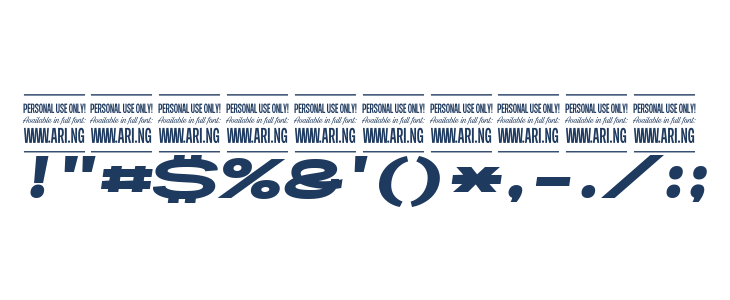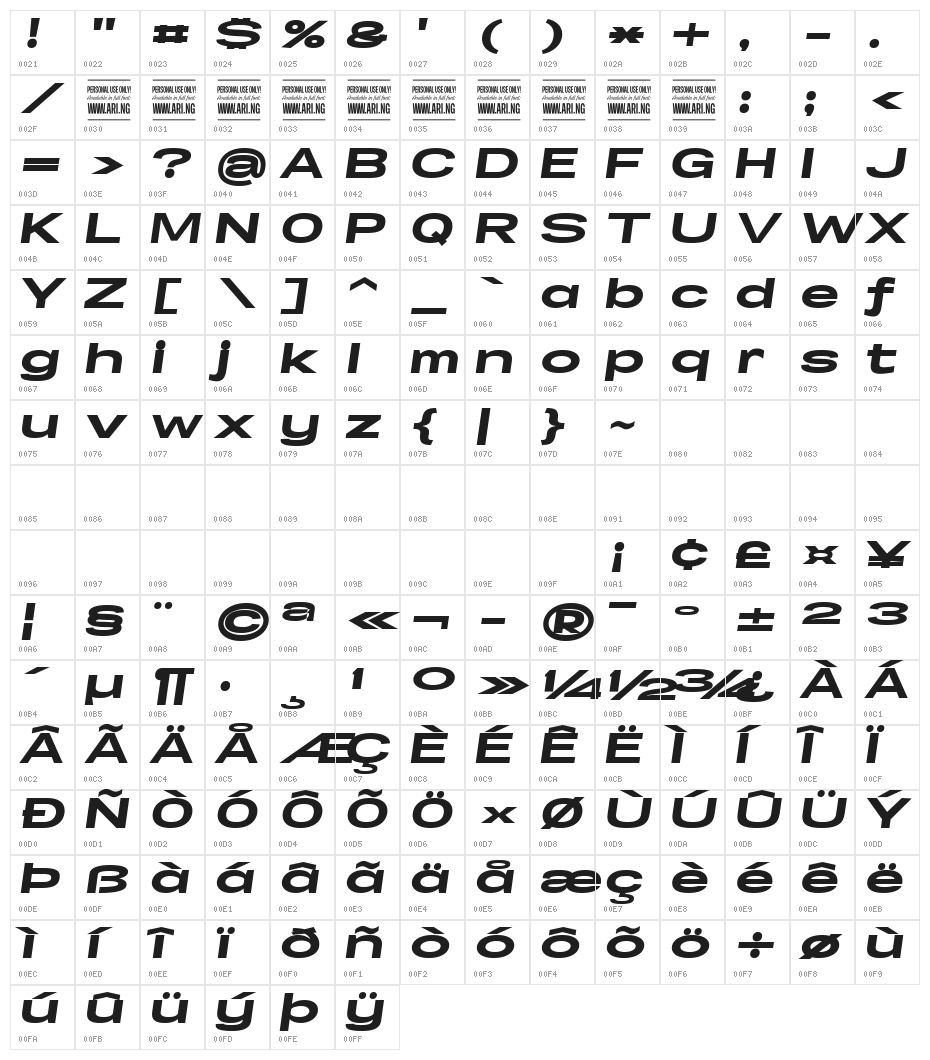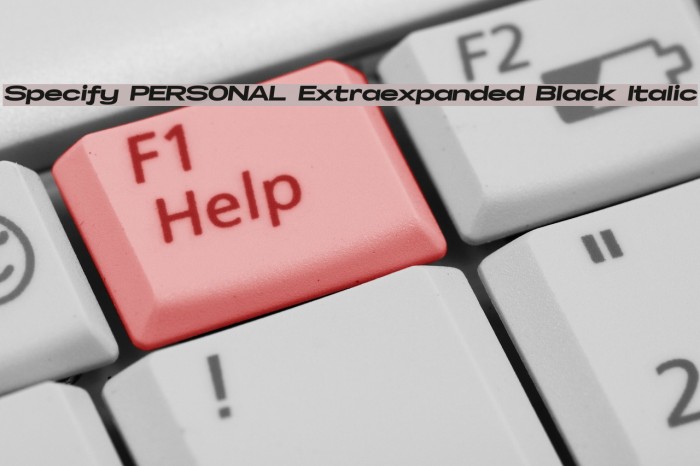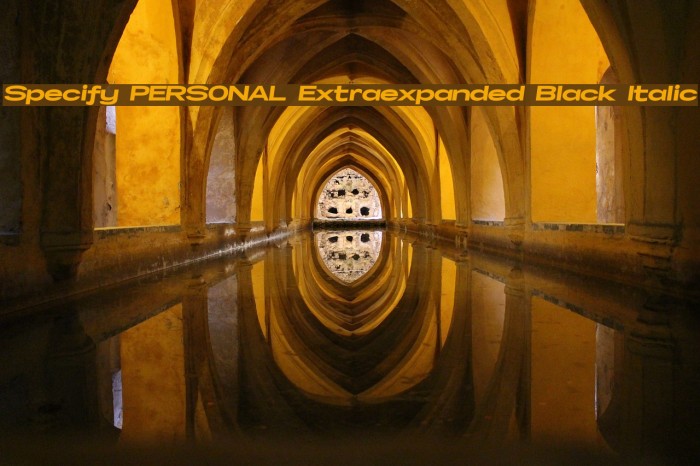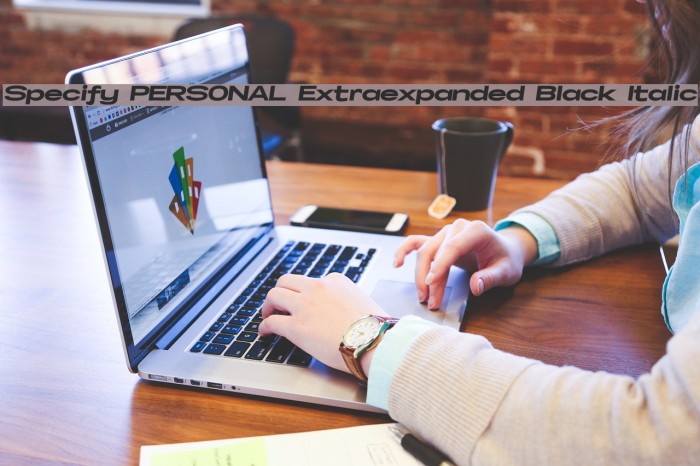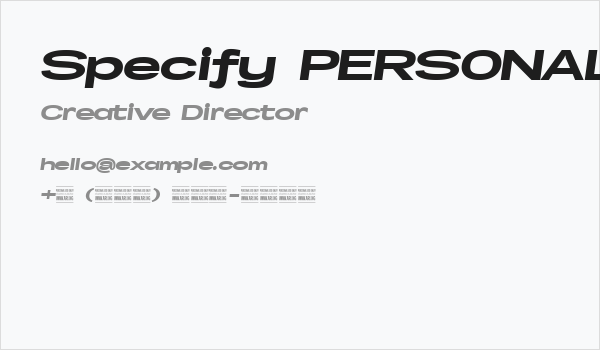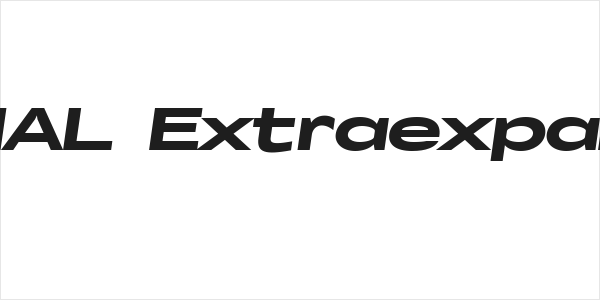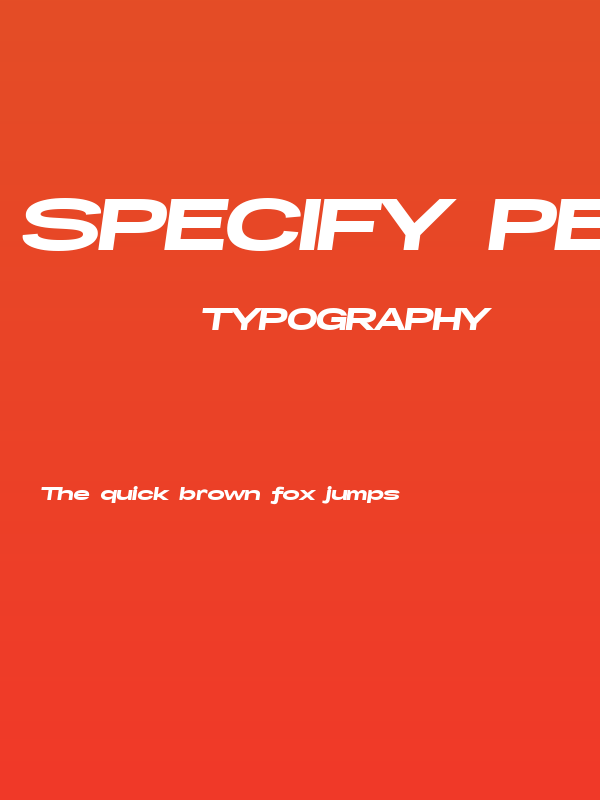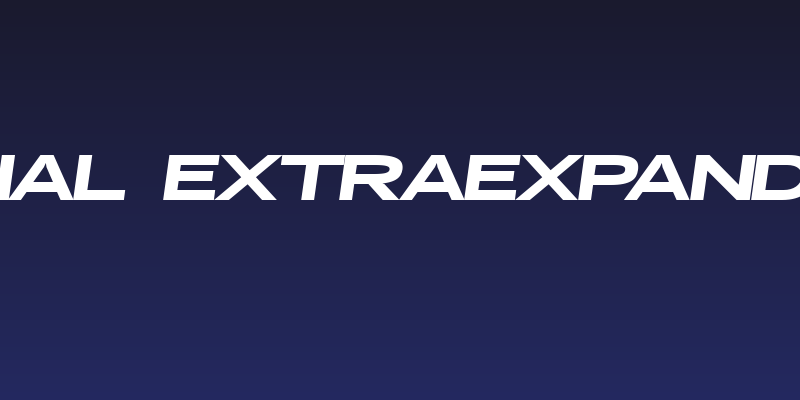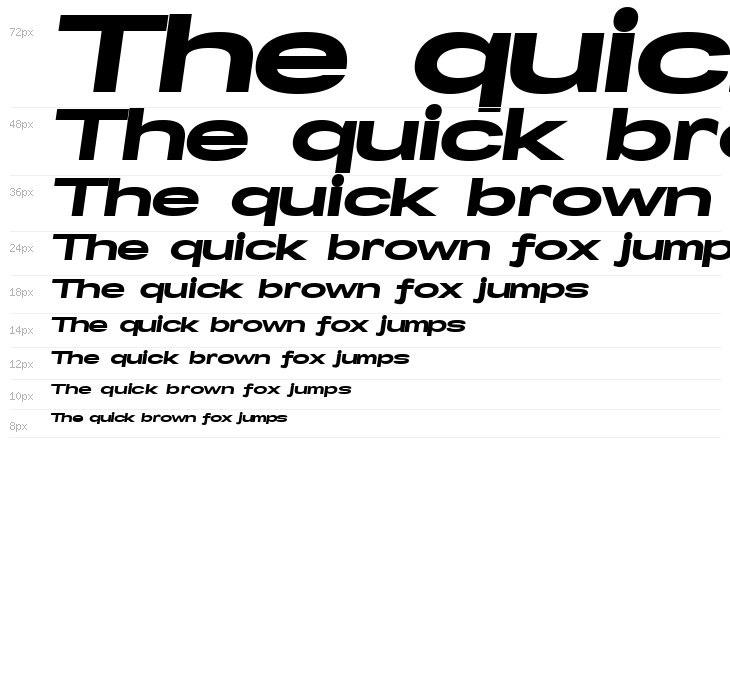
Specify PERSONAL Extraexpanded Black Italic Font
Specify PERSONAL Extraexpanded Black Italic Description
This font features an extra-expanded style with a bold and italicized appearance, giving it a dynamic and modern look. The characters are wide and slanted, providing a sense of movement and speed. The uppercase and lowercase letters maintain a consistent width, enhancing readability while adding a unique flair. The numerals and special characters are designed to match the overall style, making them suitable for a variety of design applications. The font's boldness and expanded width make it ideal for attention-grabbing headlines and impactful designs.
| Proposed Projects | Ideal for sports branding, automotive designs, dynamic posters, and modern advertising campaigns. |